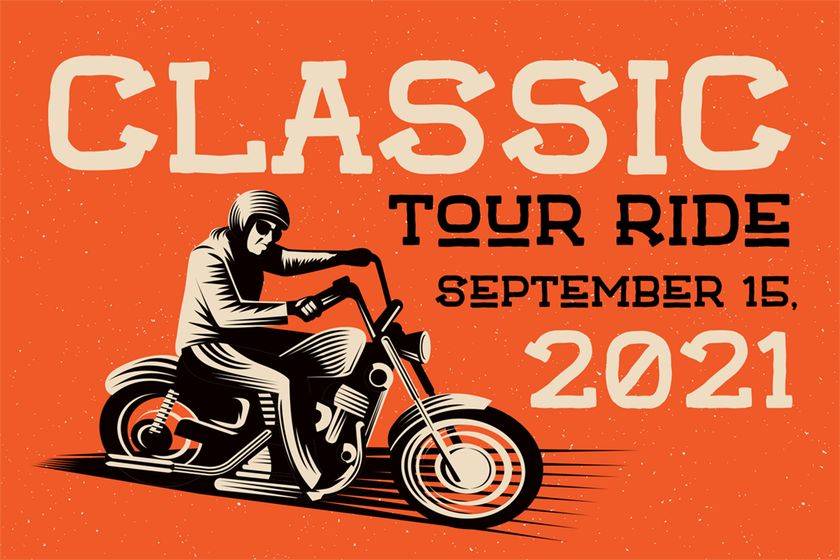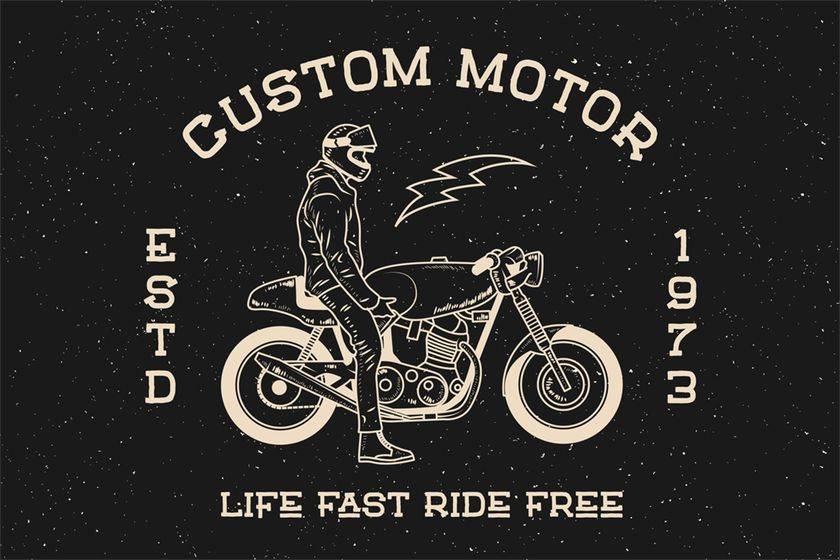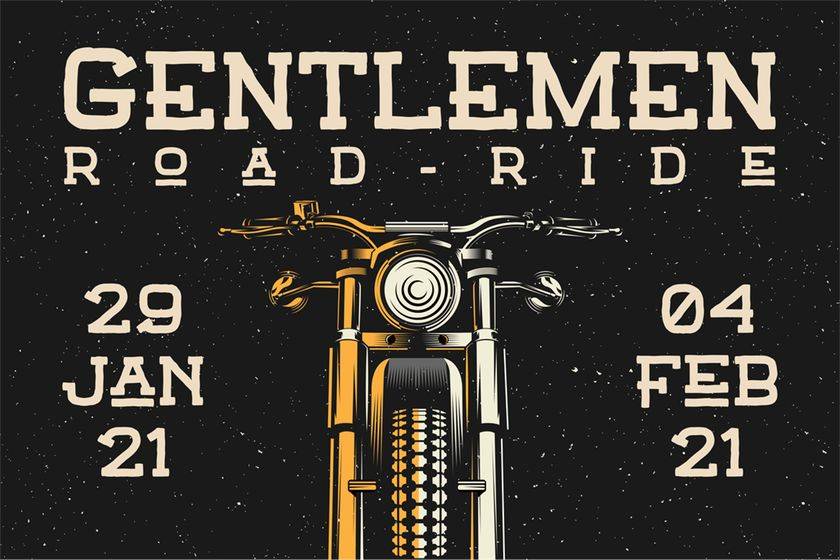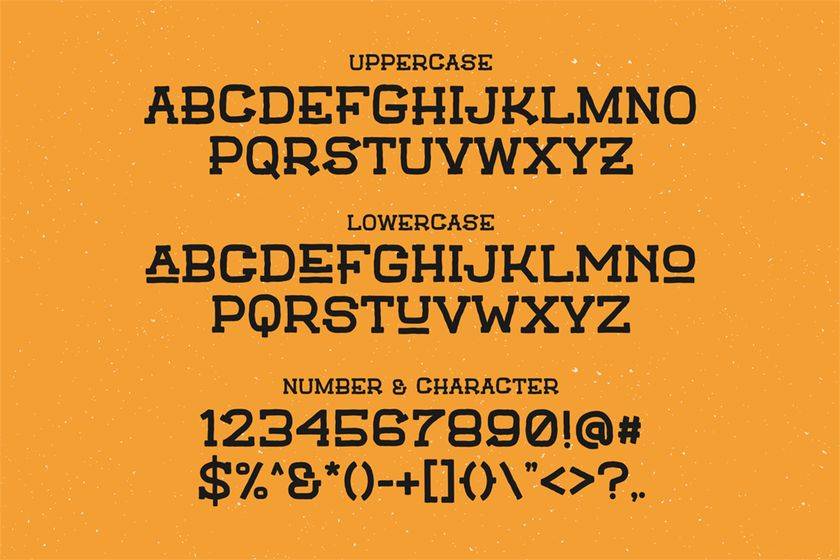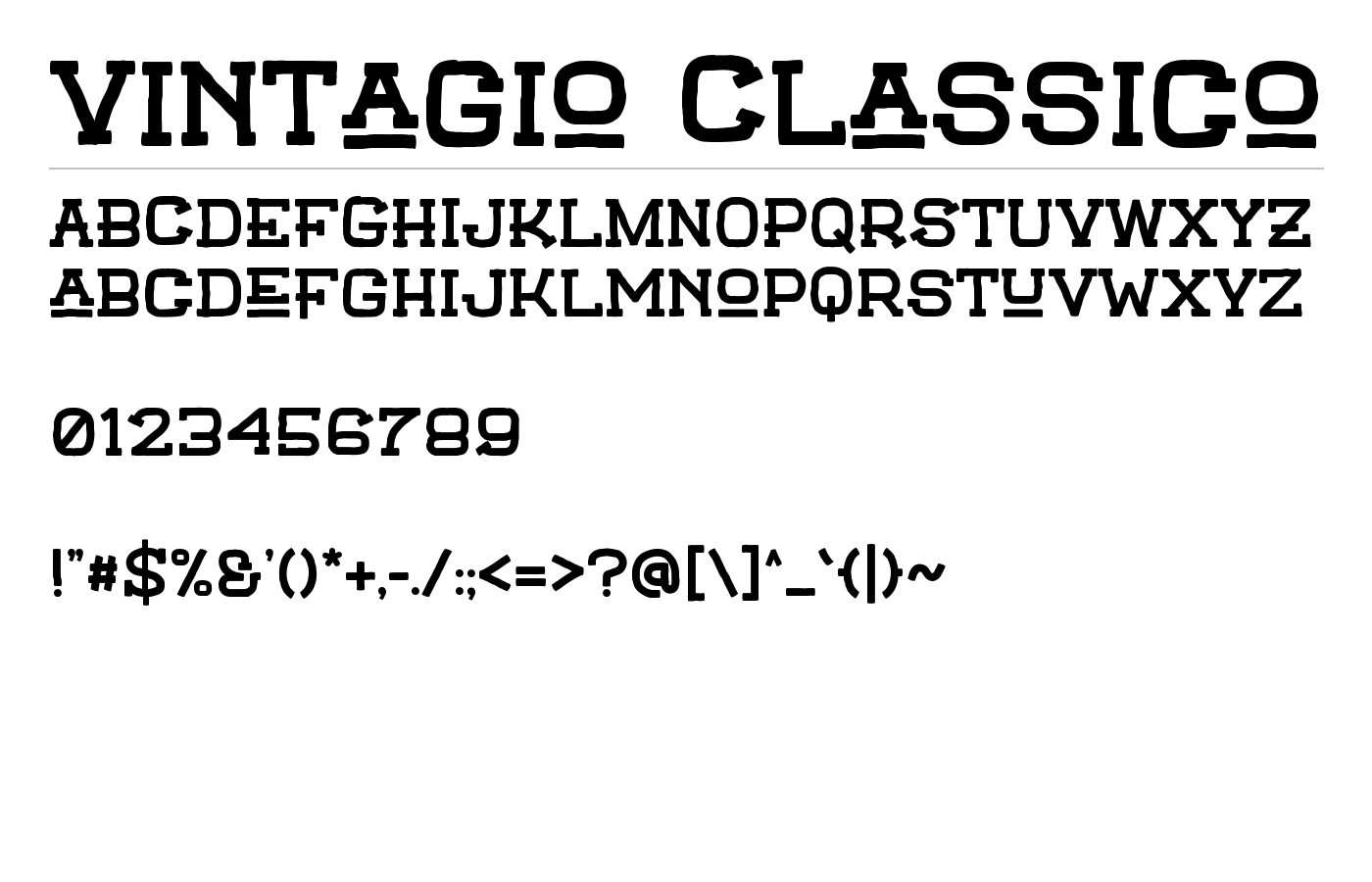
Vintagio Classico is a bold, slab serif typeface with a strong vintage character, featuring thick serifs and a slightly condensed width that gives it a sturdy, industrial feel. Its uneven stroke styles and unique underlined letterforms add personality and a handcrafted touch, making it ideal for retro branding, posters, and headlines that want to evoke a nostalgic, classic vibe with a modern twist.
Vintagio Classico Font
About Vintagio Classico Font
| Font family | Vintagio Classico Font |
| Designer | Sahirul Puguh |